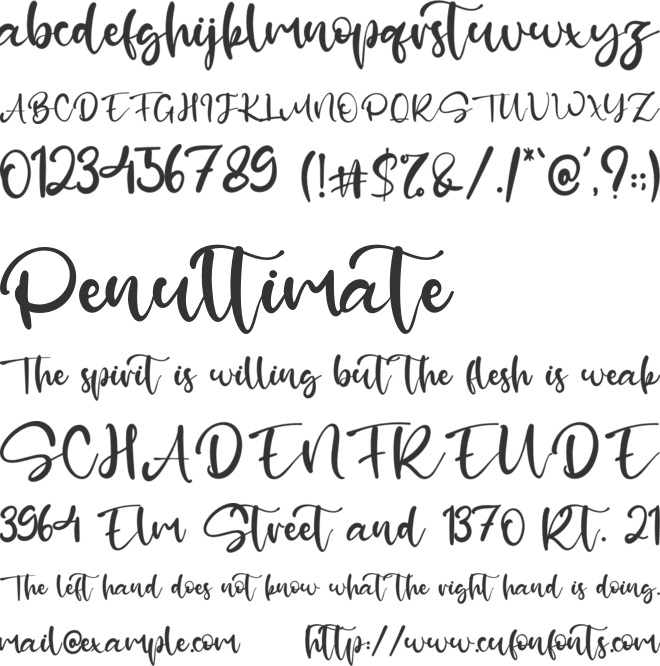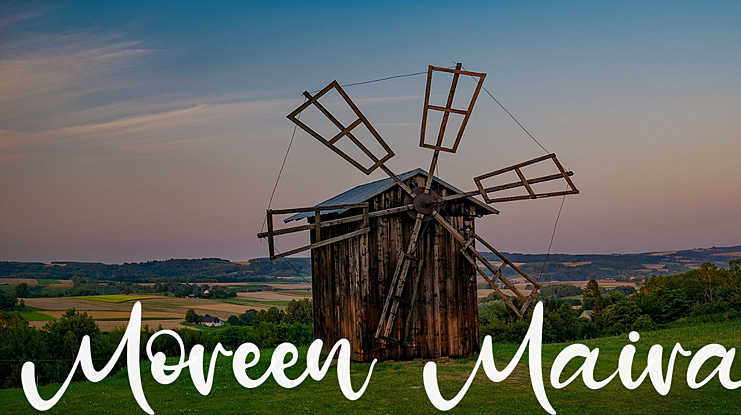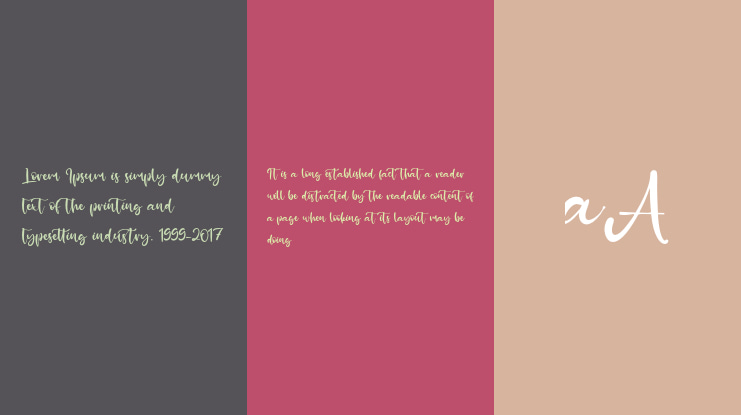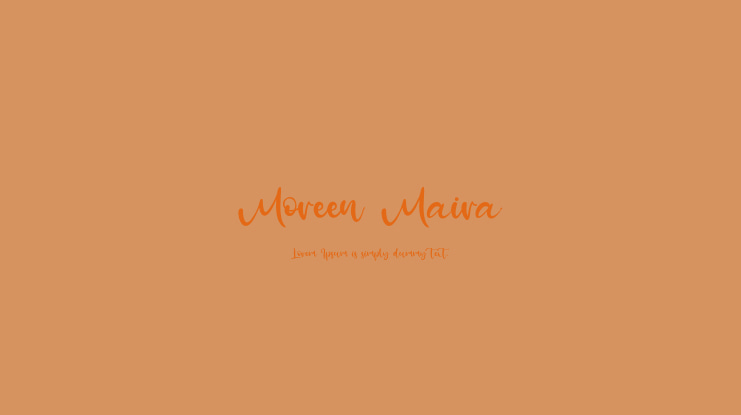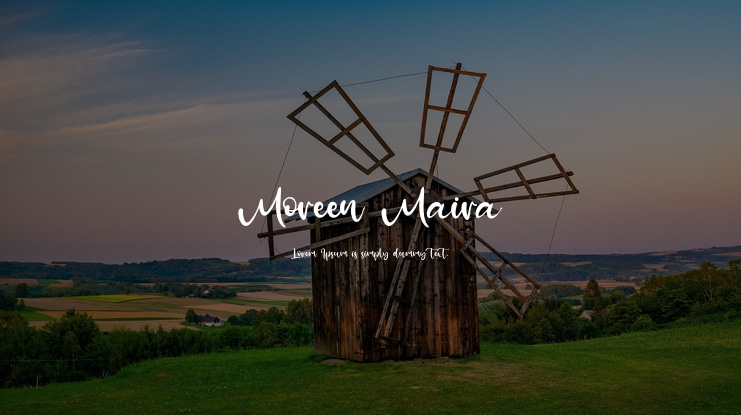
Moreen Maira Font
Moreen Maira A Luxury Signature Font. A collection of letters and numbers suitable your projects also great for Logotype, Branding Design, Logo Design, Digital Lettering Arts, T-Shirt/Apparel, Poster, Magazine, Signs, Advertising Design, and any design needs.Click our website :https://staircaselab.com/product/moreen-maira/
Moreen Maira font preview